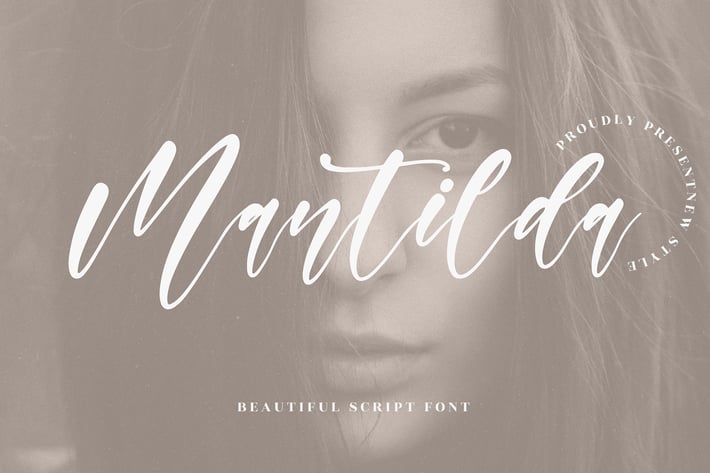
Mantilda Script Font
Mantilda is a beautiful script font designed with smooth, flowing strokes and a classy handwritten charm that feels soft, romantic, and effortlessly premium. Its elegant curves and clean signature-style rhythm make it a perfect pick for branding, wedding designs, and modern feminine visuals that need a graceful touch.
Elegant script style with natural handwritten flow
Clean, smooth strokes for a refined signature look
High readability for headlines and short phrases
Stylish swashes for a romantic, premium feel
Beauty & fashion branding
Wedding invitations & stationery
Logo signatures and personal brands
Social media quotes and covers
Packaging and promotional visuals
Where softness meets sophistication — a script crafted for graceful, modern storytelling.*